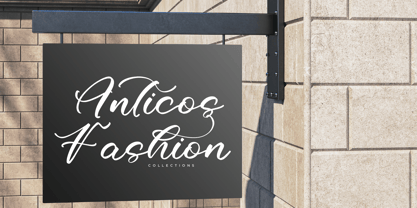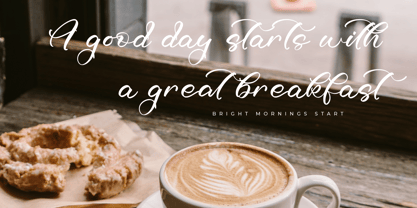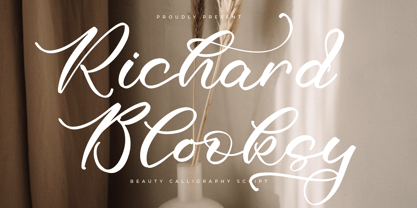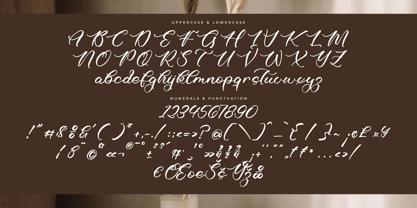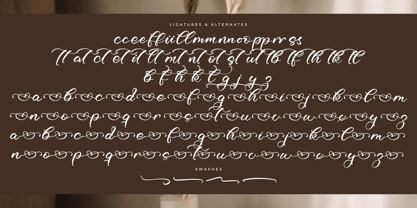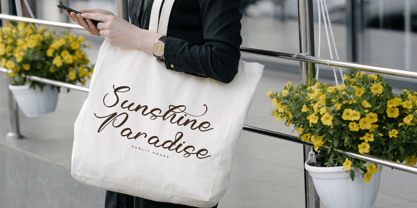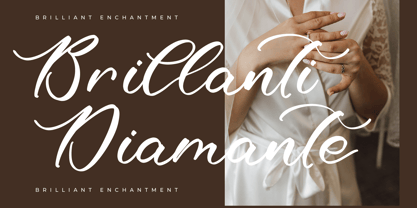
Richard Blooksy
The Richard Blooksy Font Family was designed by Heru Utama Putra and published by Letterena Studios. Richard Blooksy contains 2 styles and family package options. More about this family
Richard Blooksy – Beauty Calligraphy Script , from Letterena, is a Luxury Script font, suitable for any projects such as: logos, branding projects, homeware designs, product packaging, mugs, quotes, posters, shopping bags, t-shirts, book covers, name card, invitation cards, greeting cards, label, photography, watermark, special events, and all your other luxury and beautiful projects that need a Luxury Script taste.